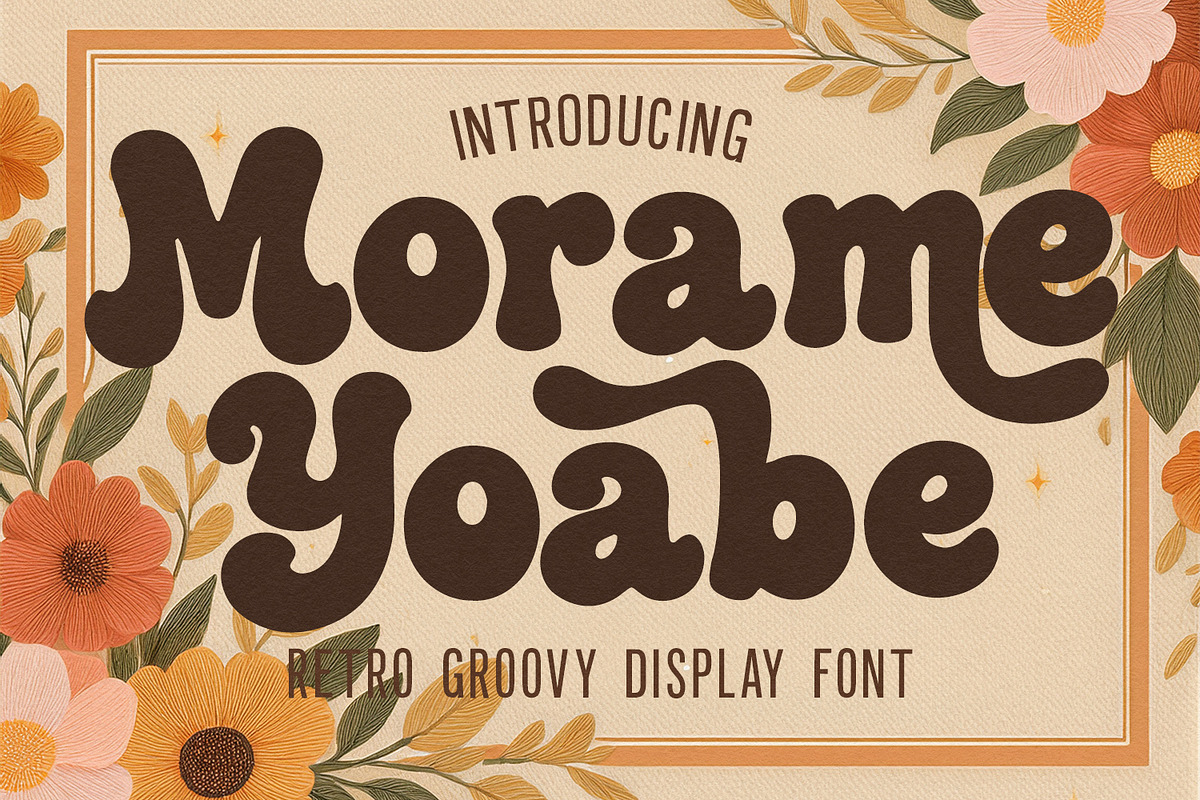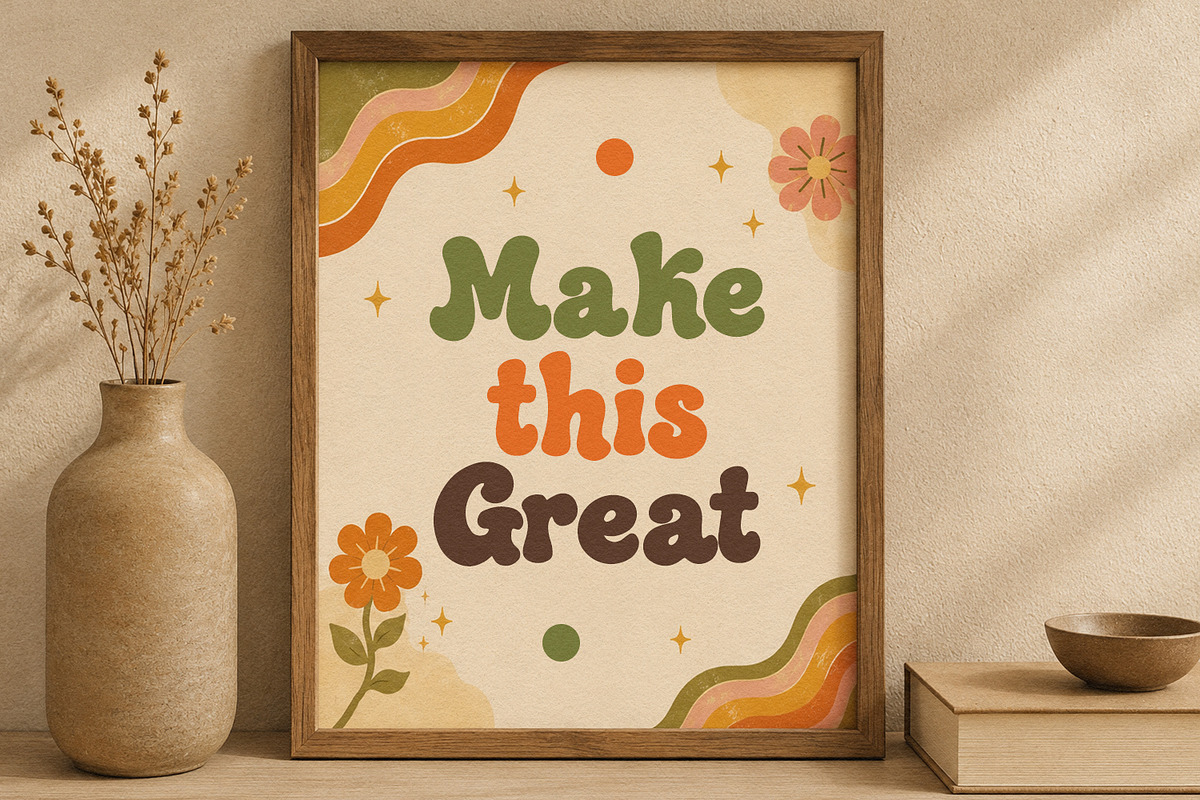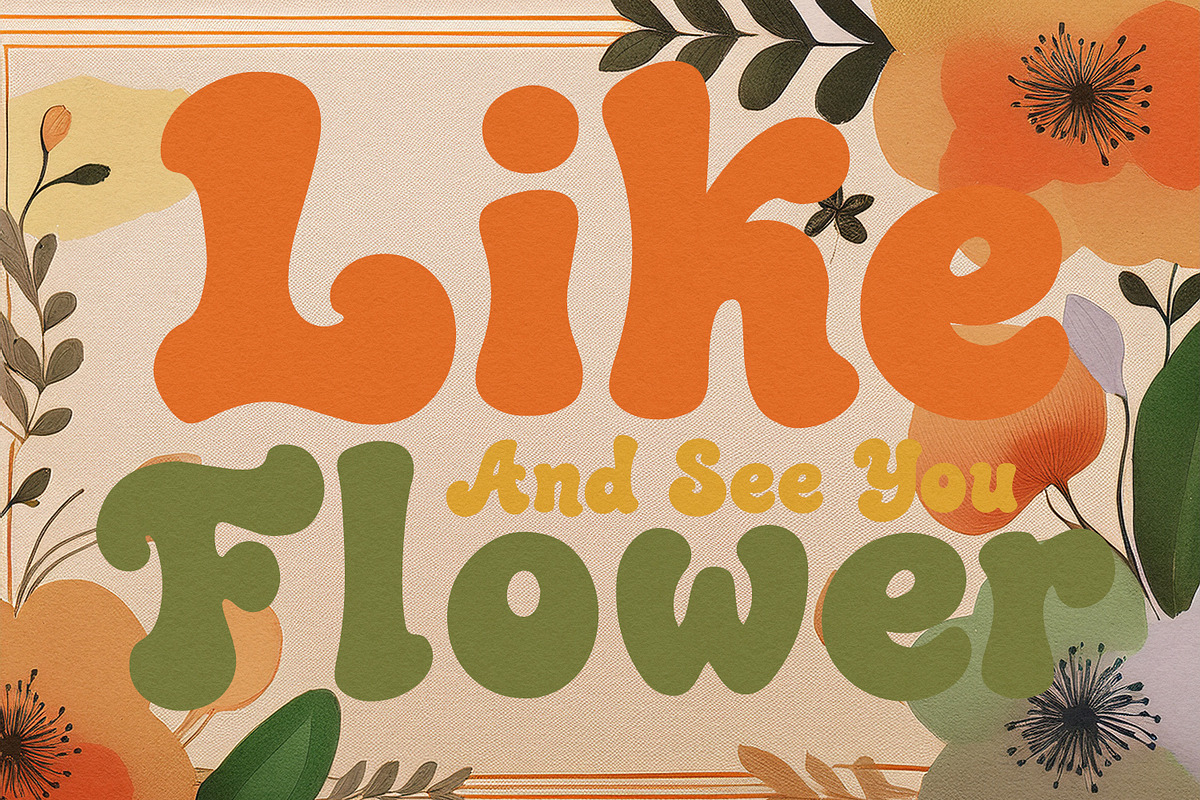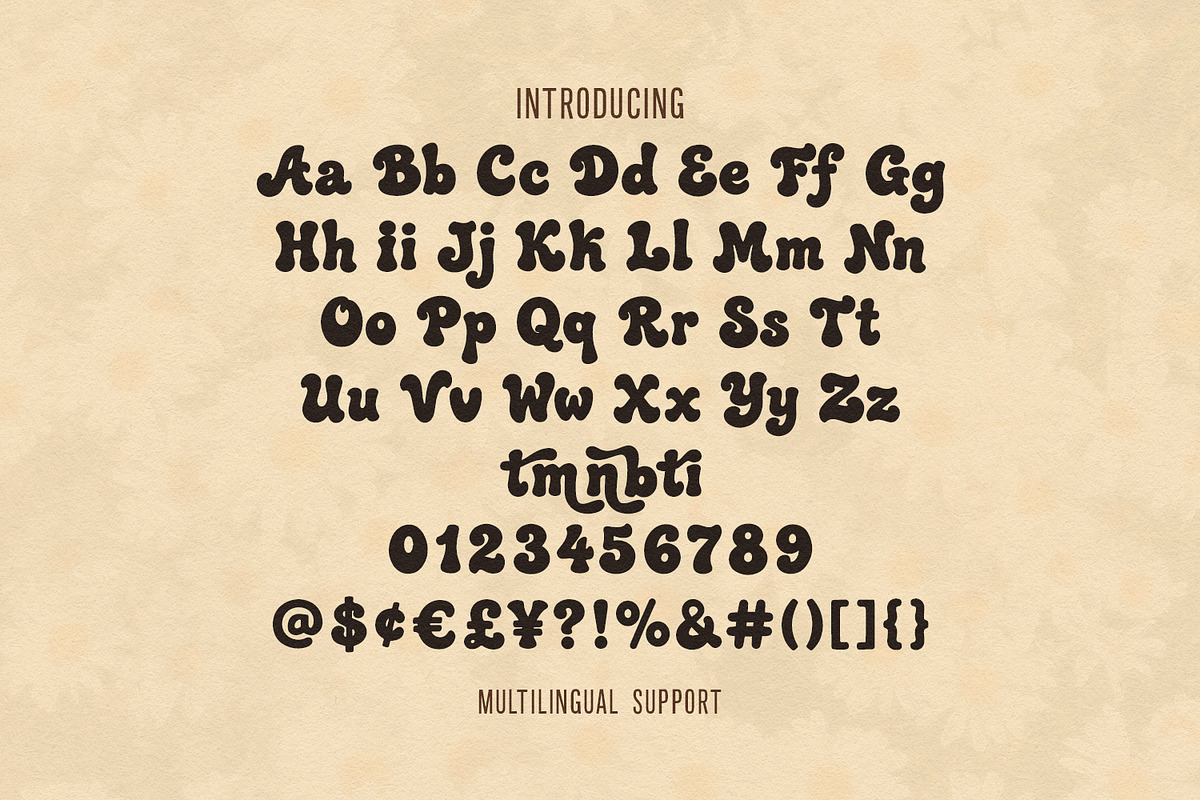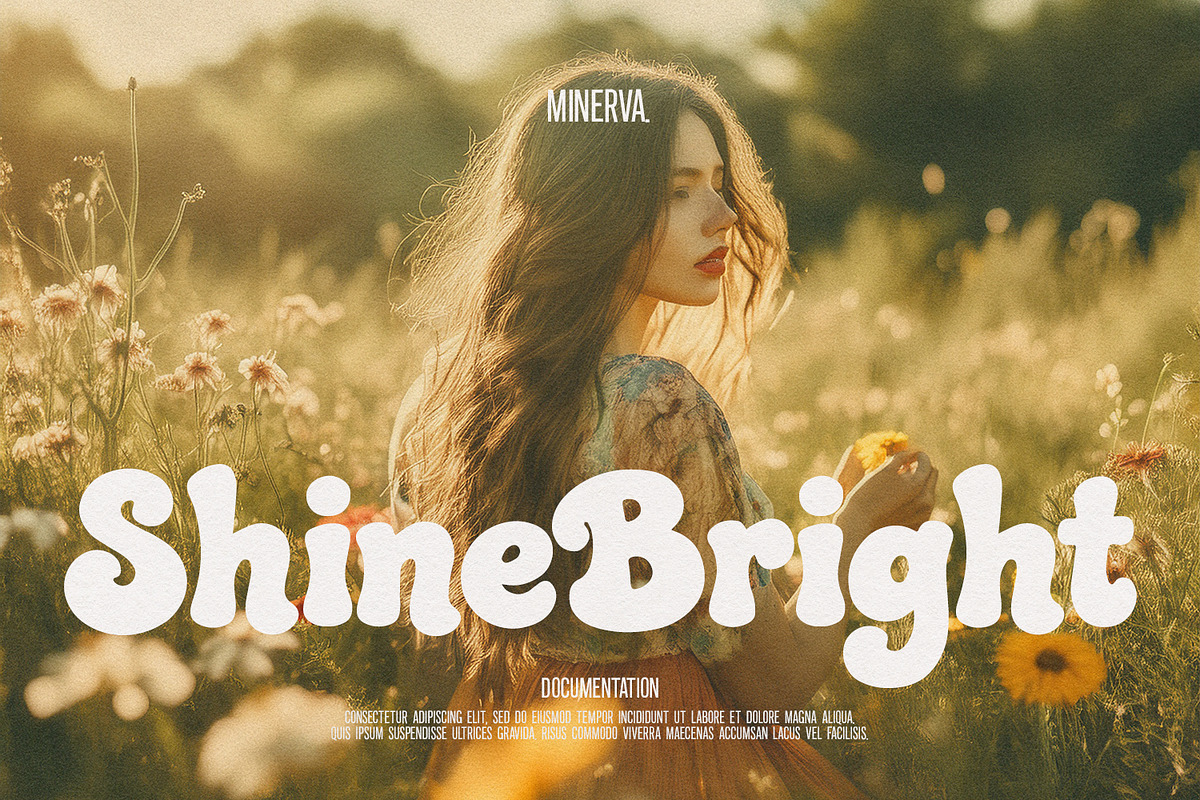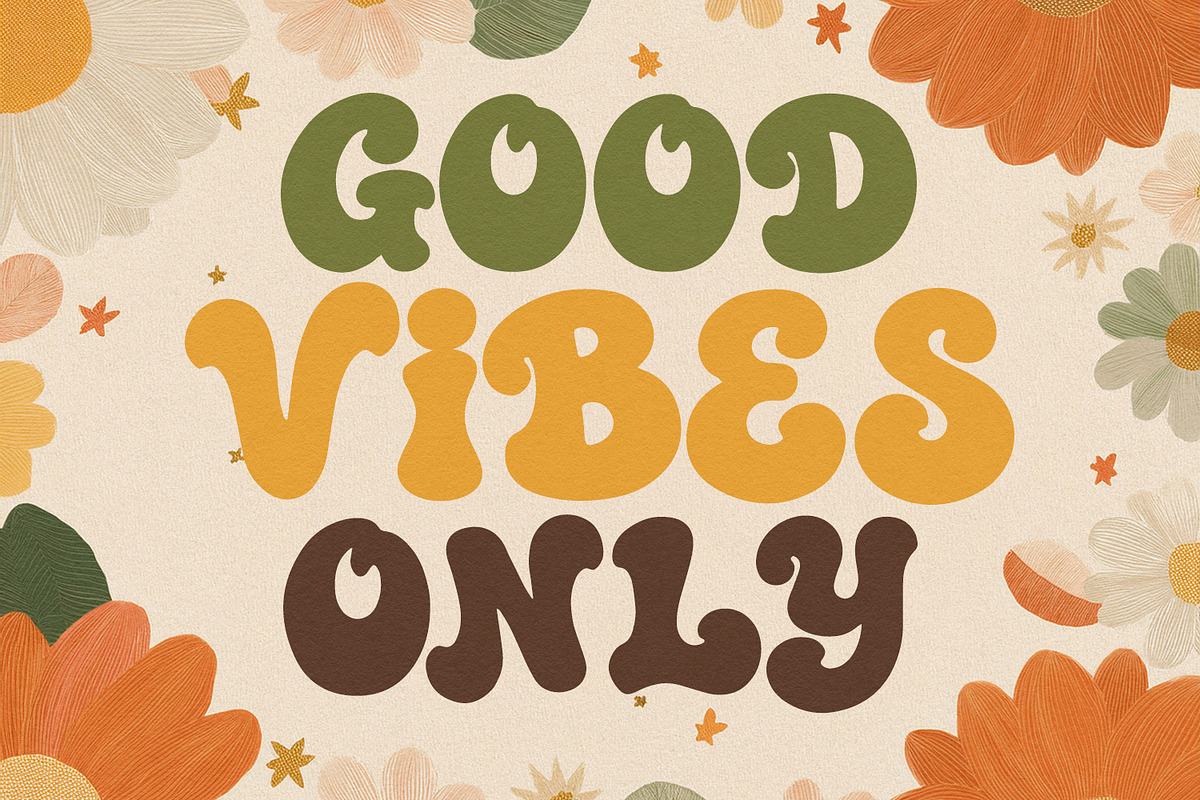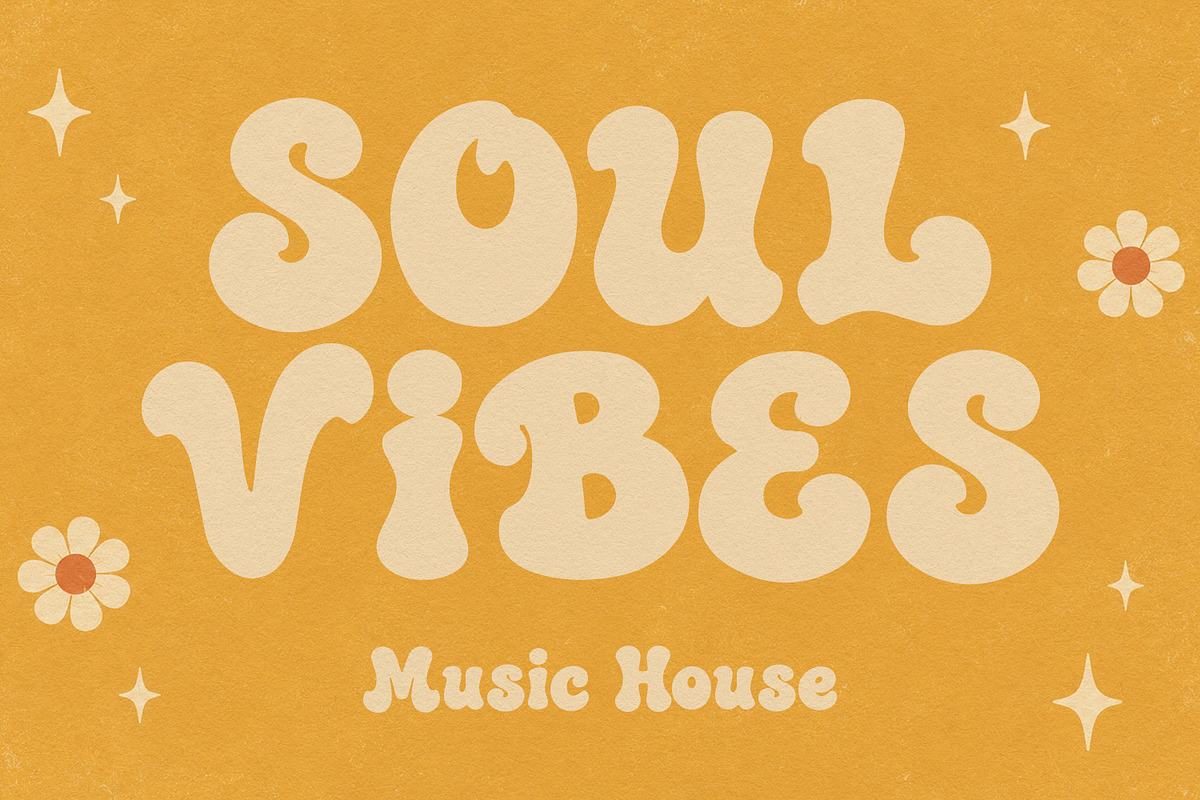
Morame Yoabe Retro Groovy Display
Morame Yoabe is a bold, retro display typeface designed to capture the vibrant energy and nostalgic charm of the 1970s aesthetics. Featuring thick, curvy letterforms and playful swashes, this typography brings a fun, warm, and vintage feel to creative artwork. The soft curves and expressive characters make it an eye-catching choice for headers, logos, and striking visual elements that require a distinct retro identity.
This groovy font offers high legibility while maintaining a unique artistic character, making it versatile for various graphic design concepts. It integrates seamlessly into branding materials, packaging designs, posters, social media graphics, and event invitations. Morame Yoabe helps elevate visual creative projects by adding a touch of classic, cheerful, and timeless typography.
Ligature and Alternate